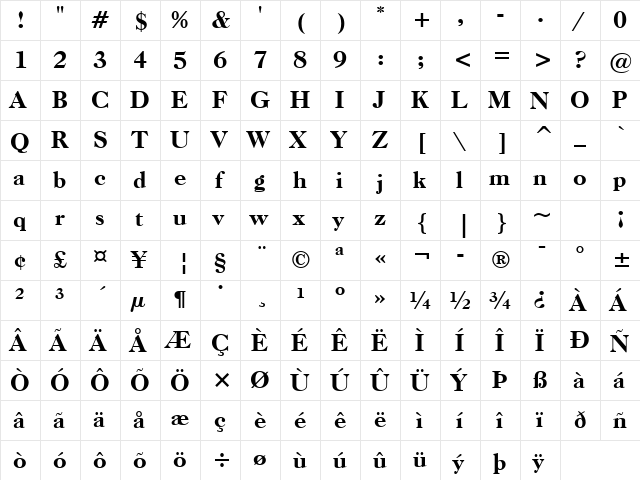
CaslonOldFace Hv Heavy
Design Context for CaslonOldFace Hv Typeface
CaslonOldFace Hv offers clean, dependable letterforms without strong stylistic allegiance, making it a practical choice for designers who need flexibility.